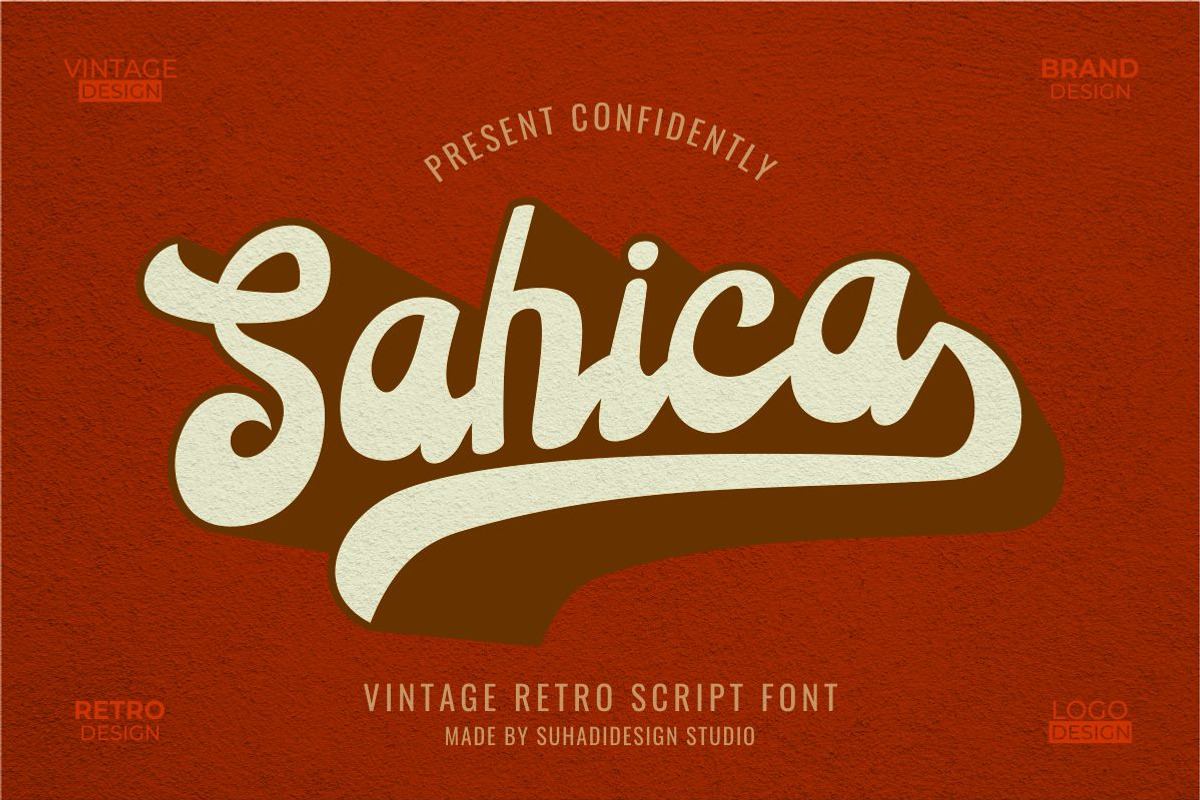
Sahica Branding Retro Groovy Font Free Download
Sahica Branding Retro Groovy Font Free Download is a vibrant and playful typeface that brings a nostalgic 70s vibe to your designs. With its bold, rounded letters and funky curves, this font is perfect for retro branding, logos, posters, packaging, and social media graphics that need a fun, eye-catching twist.
Whether you're creating a vintage-inspired brand or adding groovy vibes to a music festival poster, Sahica brings joy, color, and a retro flair to your typography. It’s the ideal font for designers who want to channel the spirit of the groovy era in their work.